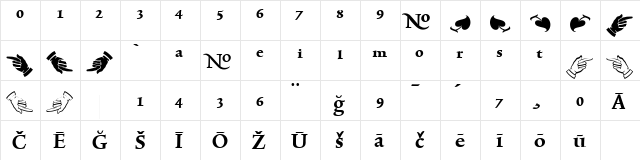
TriniteNo2 Bold
Design Context for TriniteNo2 Typeface
TriniteNo2 is a composed and adaptable typeface that performs quietly and consistently across a wide range of design contexts. The heavy weight commands attention and anchors typographic hierarchies.